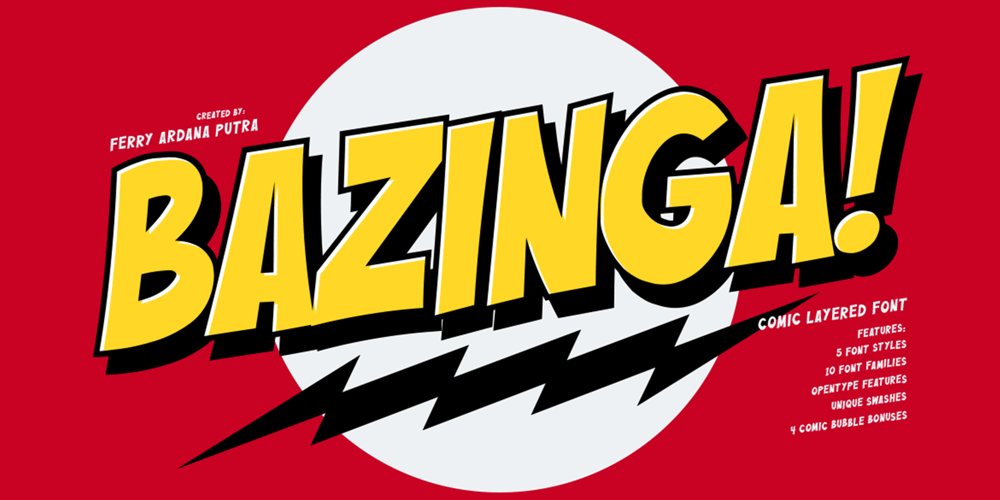
Bazinga Comic Font Family was designed by Ferry Ardana Putra and published by Ferry Ardana Putra. Bazinga Comic contains 10 styles and family package options. Bazinga! is a fabulous new layered comic book style font that is inspired by Sheldon favorite jokes word – Bazinga! You can combined this font with any layered style which included in this font family. This font is Perfect for adding a comical feel to your designs, whether it is comical quotes, label, logotype poster and many more!Bazinga! features: A full set of uppercase characters Numbers & punctuation Multilingual language support PUA Encoded Characters 275 Total glyphs Layered Style If you have any queries, questions or issues please don’t hesitate to contact us directly,Note: In order to use this font, you need a program that supports OpenType features such as Adobe Illustrator CS, Adobe Photoshop CC, Adobe Indesign and Corel Draw.For more information about accessing alternative, you can see this link: http://adobe.ly/1m1fn4Y